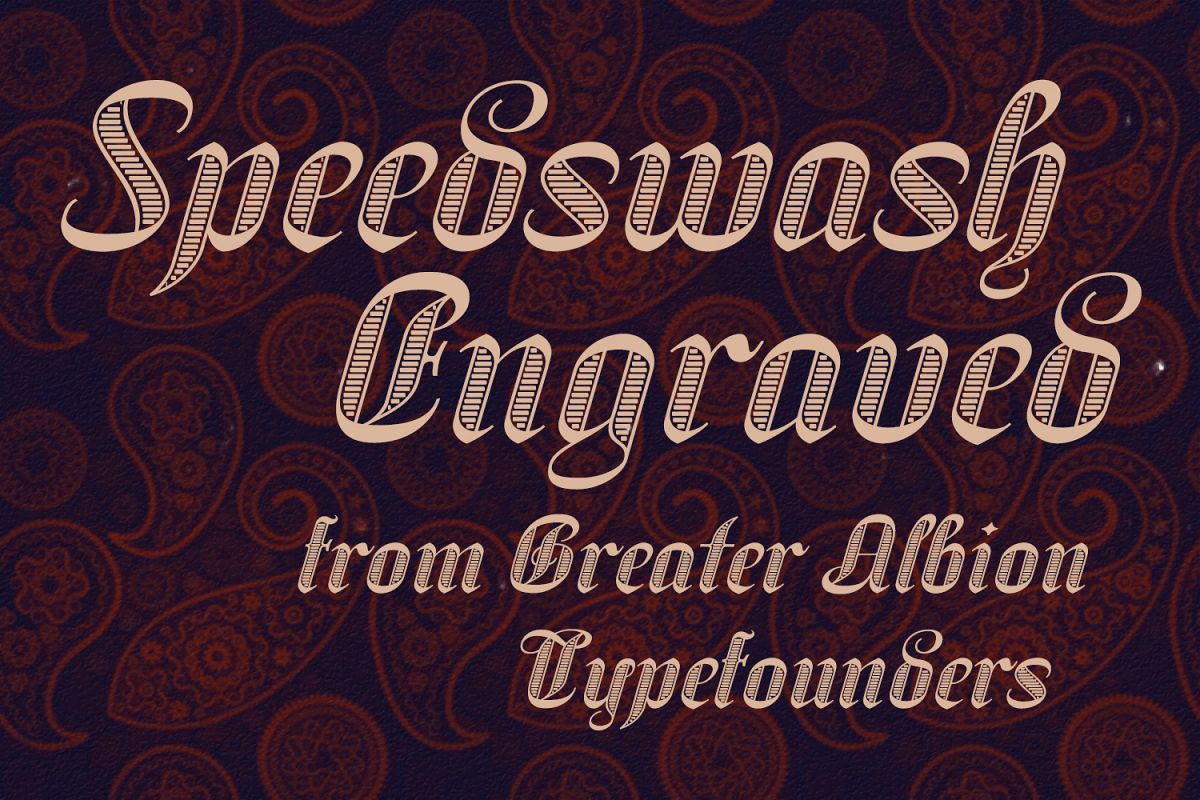
Speedswash Engraved
SpeedSwash is a stylised oblique script-fraktur hybrid.  That description could sound bizarre - lets face it, it does - but the result is actually  rather splendid we think.  Lovely for poster work where a sense of life and motion is required.
Greater Albion TypeFounders